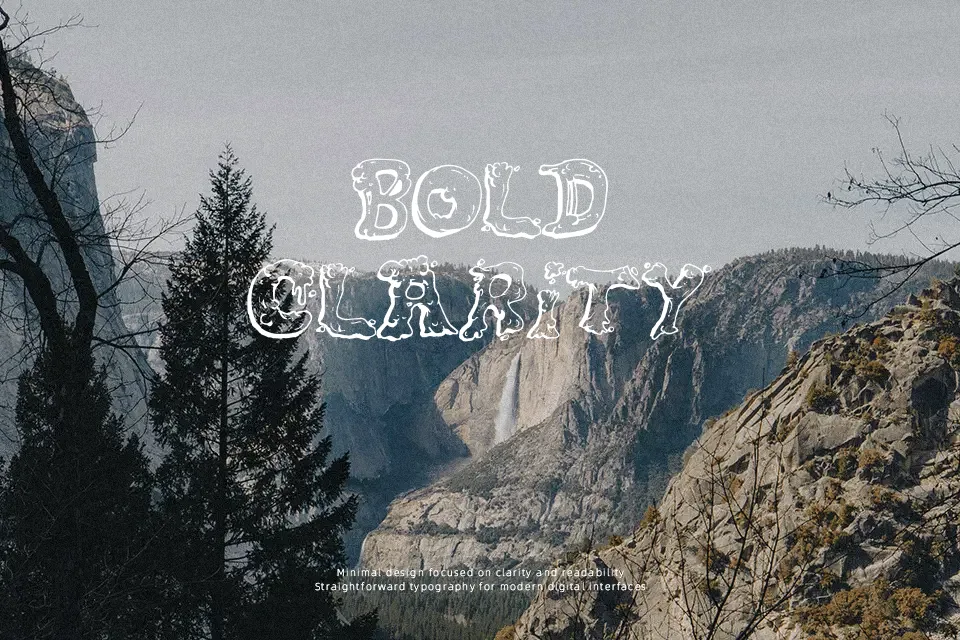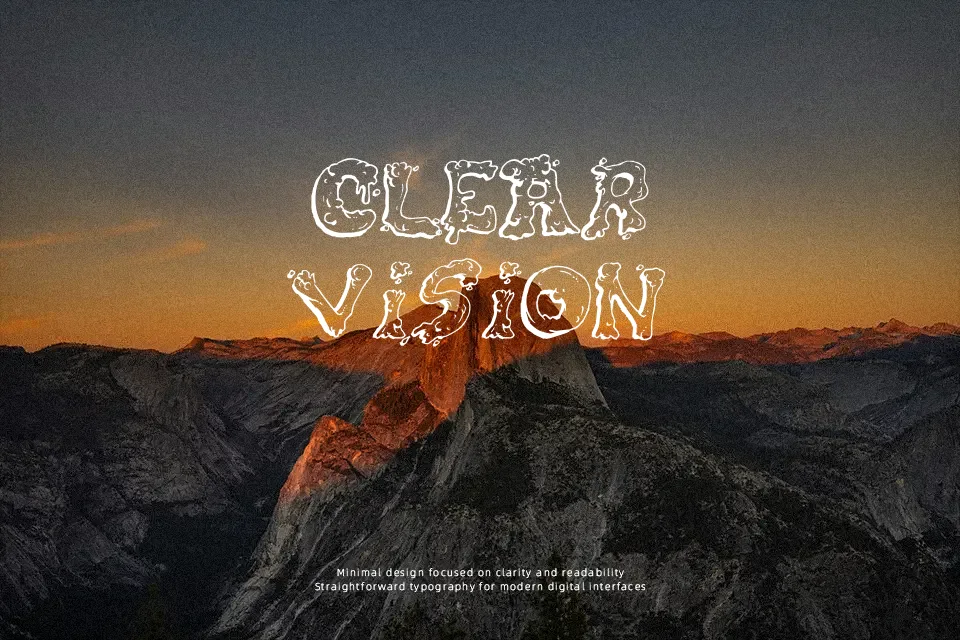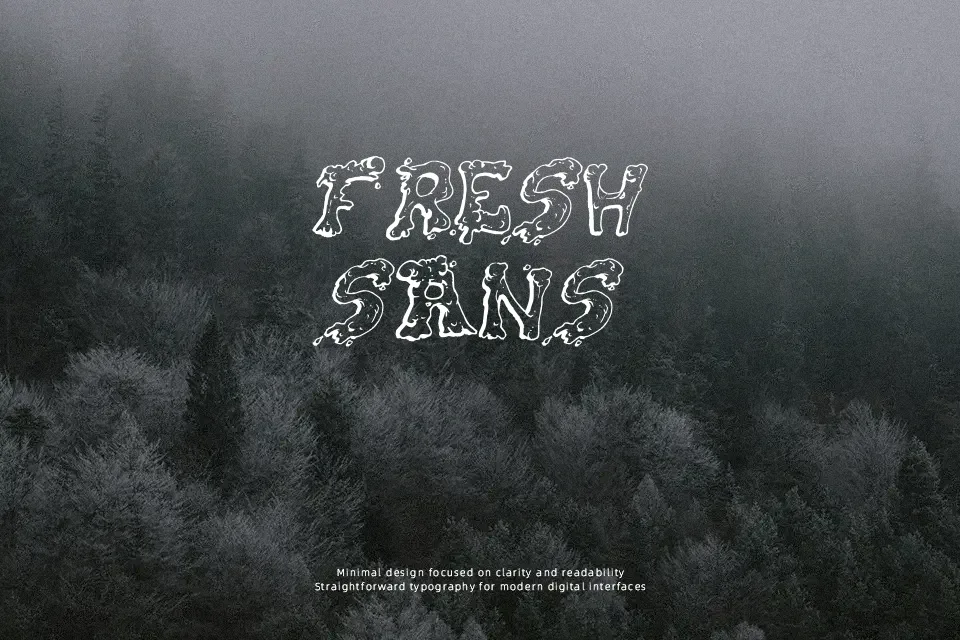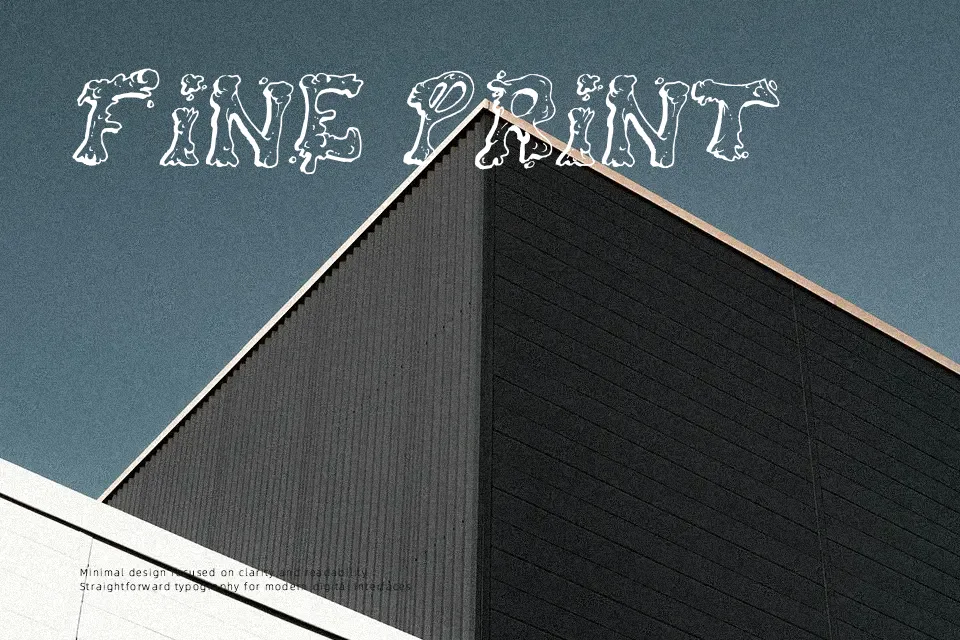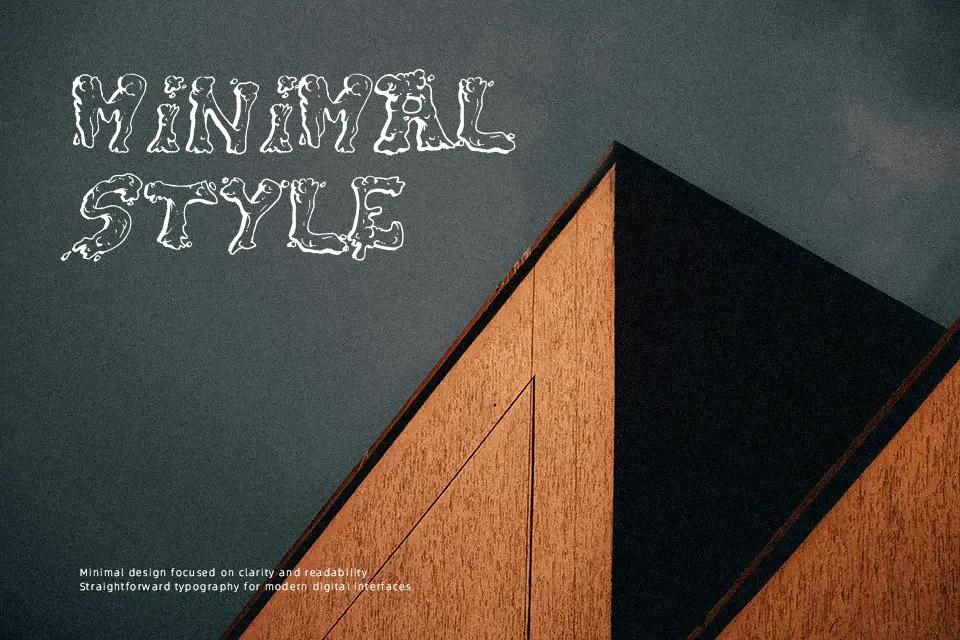
Snot Font
Designed by Toxic Type
Snot uses heavy, rounded forms with soft curves, uneven edges, and visible drip-like extensions that create a loose cartoon appearance. The broad strokes give uppercase and lowercase letters a strong presence, while the irregular details make the design more expressive than neutral. Spacing appears open enough for short words and large headlines to remain distinguishable. It works best when the decorative shapes can be seen clearly on posters, labels, and themed graphics. The font is less comfortable in small sizes or continuous text, where the drips and bulky forms can slow recognition.
Best For: Halloween posters,kids’ party invitations,novelty product labels,playful social media headlines
Not Ideal For: long paragraph text,small interface labels,corporate reports,technical manuals
Perfect for halloween, headline, and kids, with a bold and cartoon style.